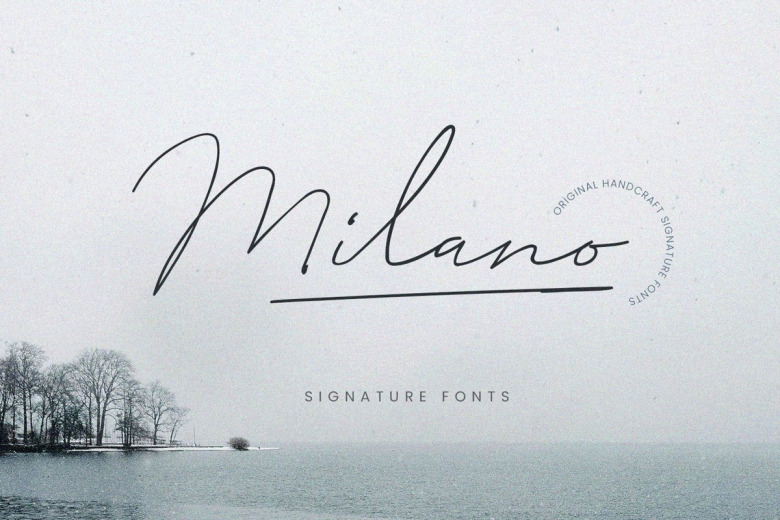
Milano Signature Script Font
Milano Signature Script Font is a thin and minimalist handwritten typeface. This type of font perfectly made to be applied especially in headlines which is need a standout font, and the other various formal forms such as invitations, labels, logos, magazines, books, greeting / wedding cards, packaging, fashion, make up, stationery, novels, labels or any type of advertising purpose.